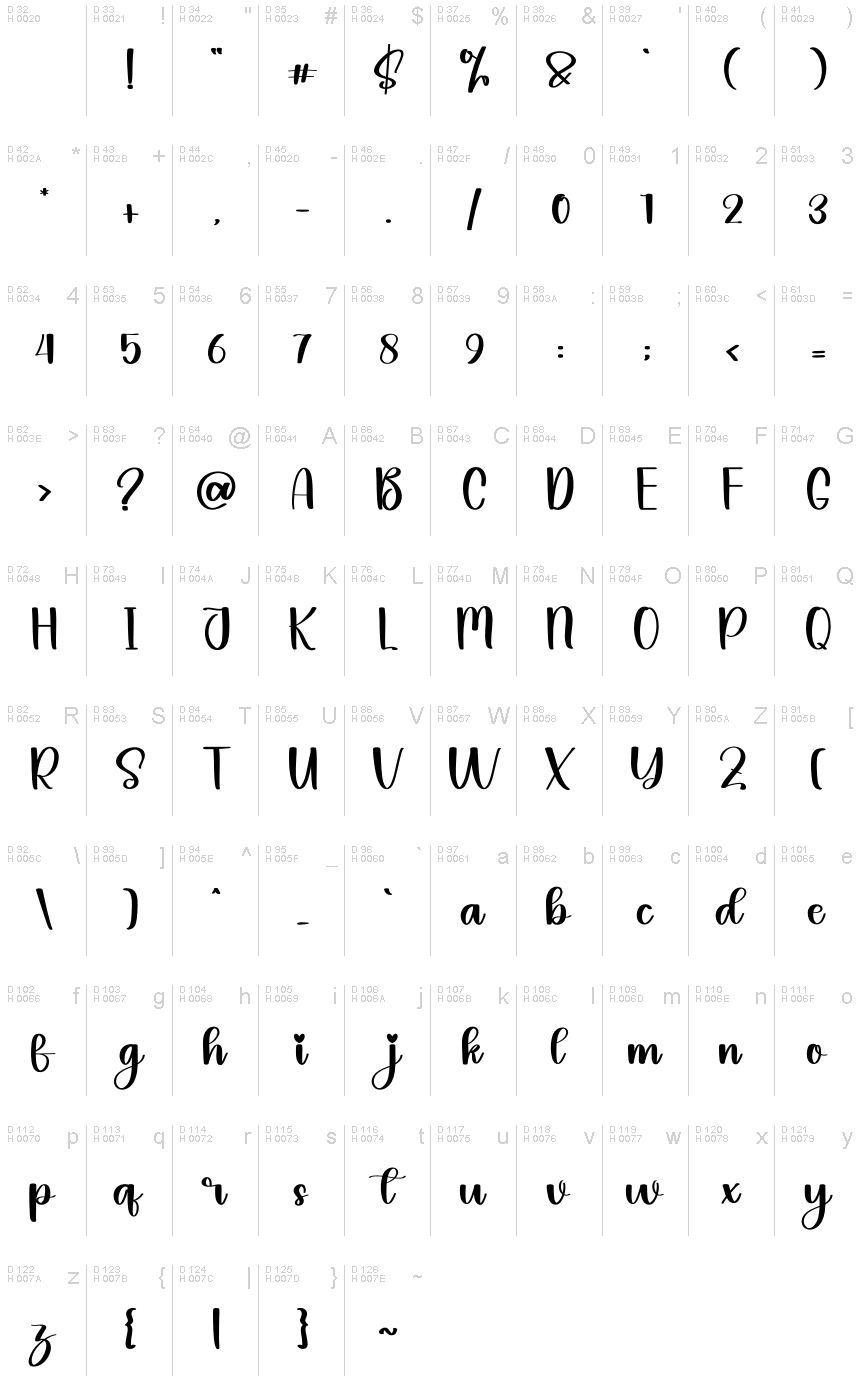
Higlight
The Higlight font exudes a captivating and organic essence, reminiscent of handcrafted calligraphy. Its fluid, script-like strokes create a sense of effortless elegance, while the subtle variations in line thickness add depth and character to each letter. The font's natural rhythm and expressive quality evoke a sense of warmth and personality, making it an alluring choice for designers seeking to infuse their projects with a touch of handmade charm.
Higlight's versatility allows it to seamlessly adapt to a wide range of design applications, from branding and packaging to editorial layouts and social media graphics. Its distinctive personality can elevate the visual impact of headlines, subheadings, and display text, while its legibility makes it a suitable option for body copy in select contexts. Designers seeking to create a memorable and visually engaging user experience will find Higlight to be a compelling asset in their creative toolkit.